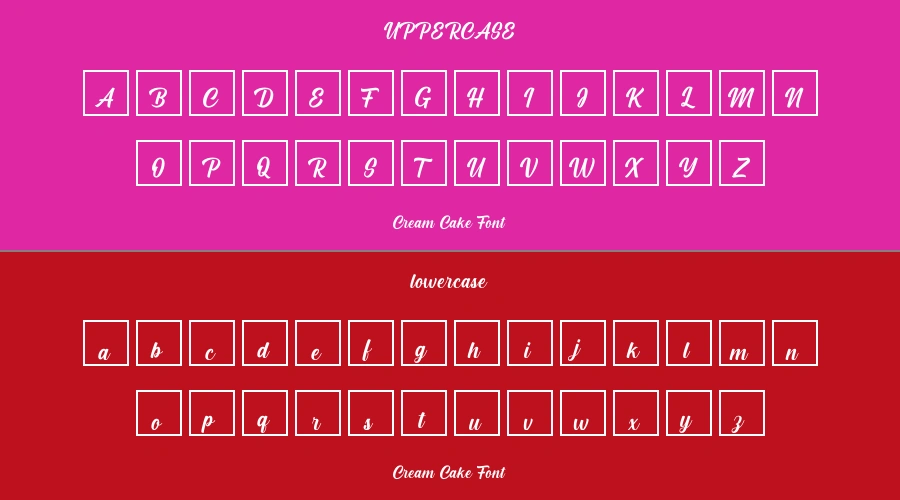
About Cream Cake Font
Designed with precision, Cream Cake Font merges systematic design with reliability in every character. This versatility makes it particularly effective for technical manuals, where versatility and generational appeal directly impact communication quality. Each letterform demonstrates meticulous craftsmanship.
Technical excellence shines through elements like harmonious shapes and subscript/superscript, enhancing typographic versatility. In campaign headers settings, Cream Cake Font proves its worth through superior language switching. The thoughtful execution of counter shape and regulatory compliance ensures professional results.